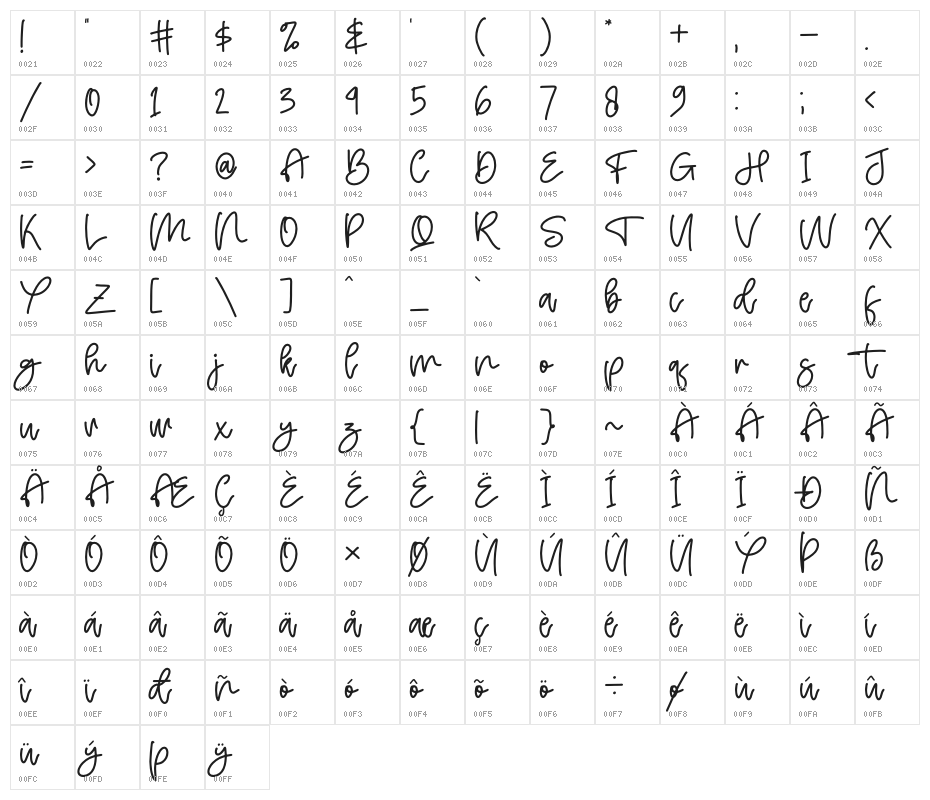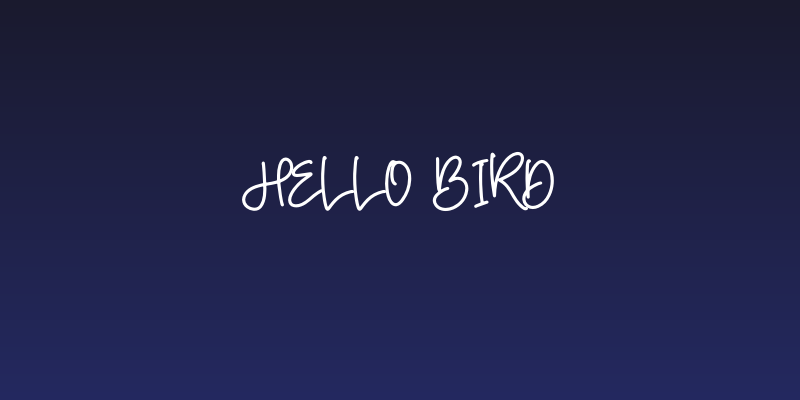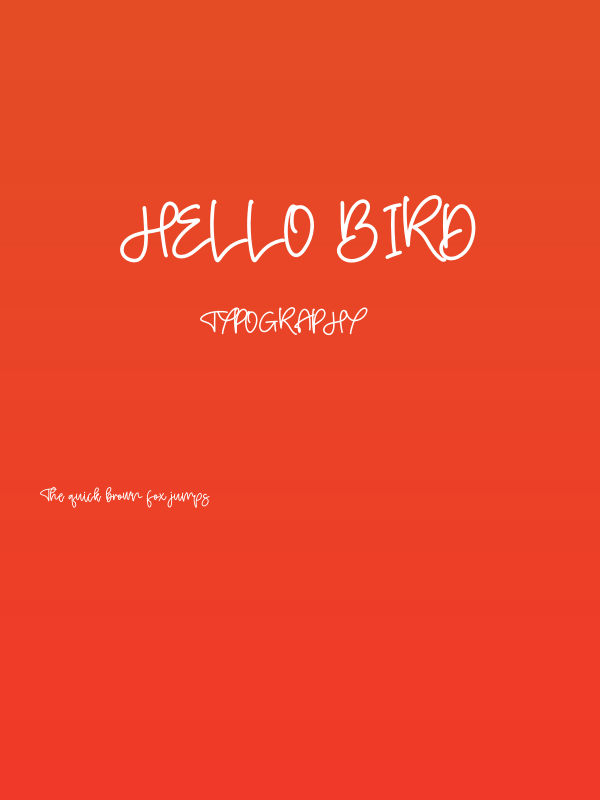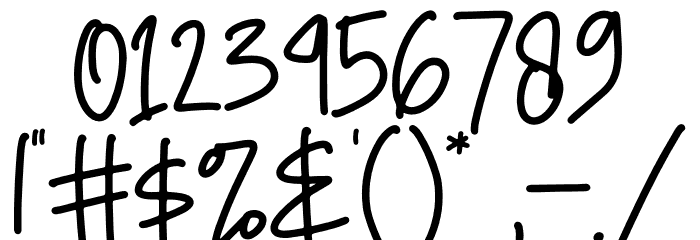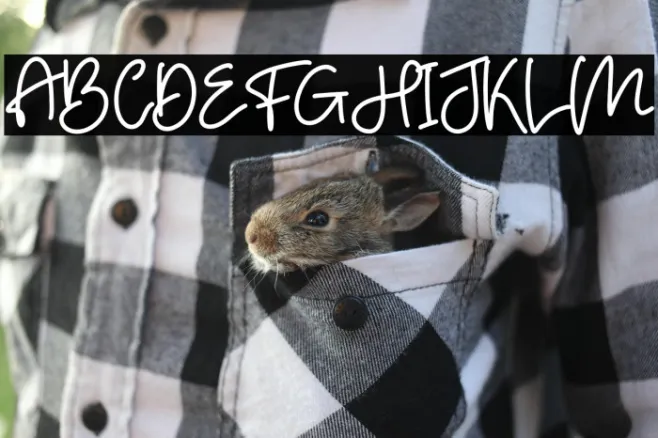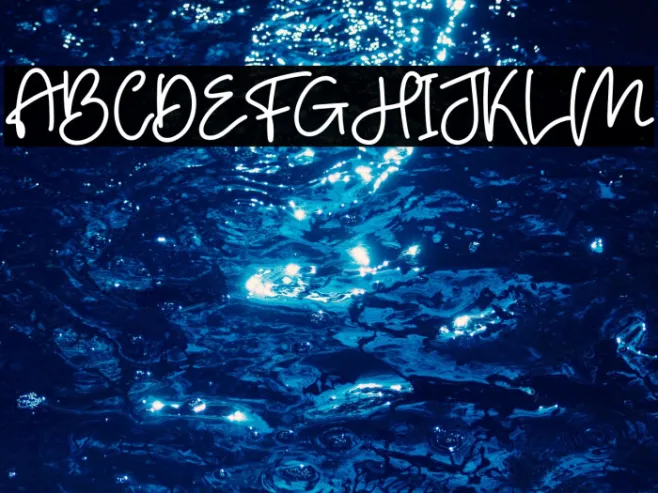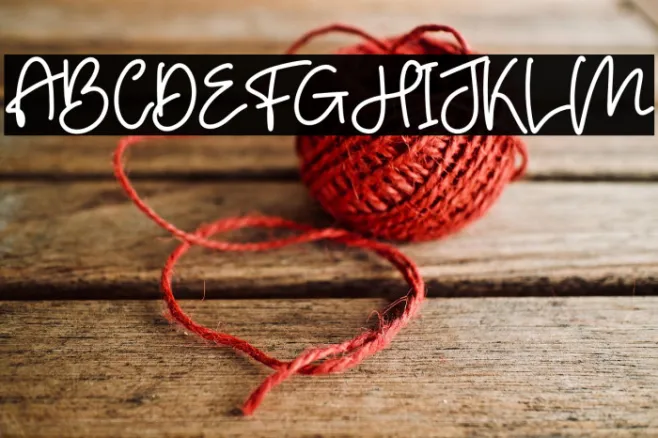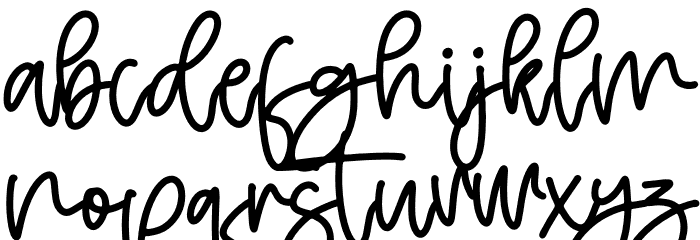
Hello Bird Font
Hello Bird Description
This font exudes a playful and casual handwritten style, characterized by its fluid and dynamic strokes. The uppercase letters are bold and slightly slanted, giving them a lively appearance. The lowercase letters maintain a consistent flow, with some characters featuring unique loops and curves that add to the font's charm. Numbers are clear and legible, while the special characters retain the same energetic style. This font is ideal for projects that require a personal touch, such as greeting cards, invitations, or branding that seeks to convey friendliness and approachability.
| Proposed Projects | Greeting cards, invitations, personal branding, social media graphics. |